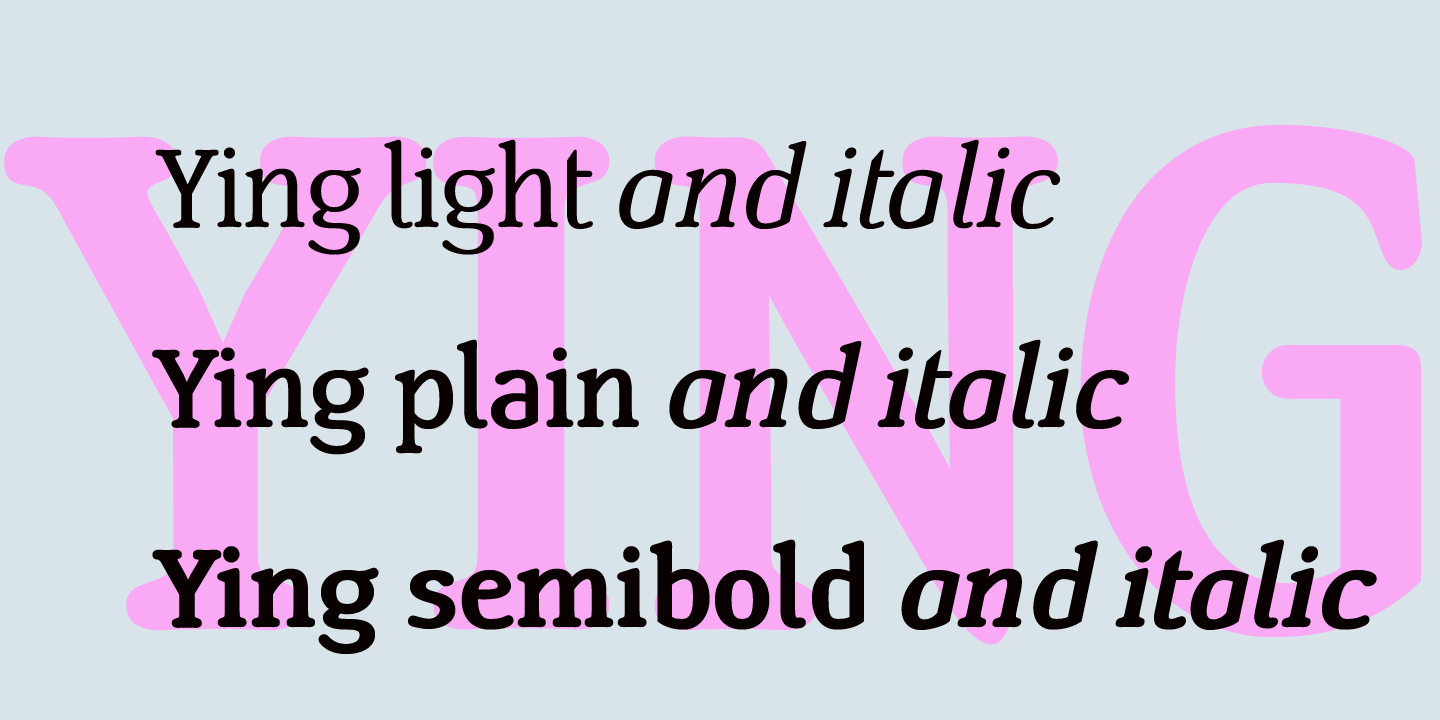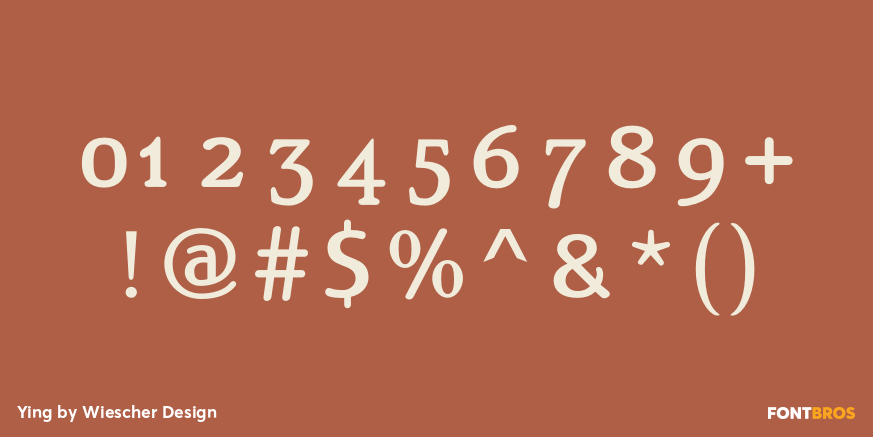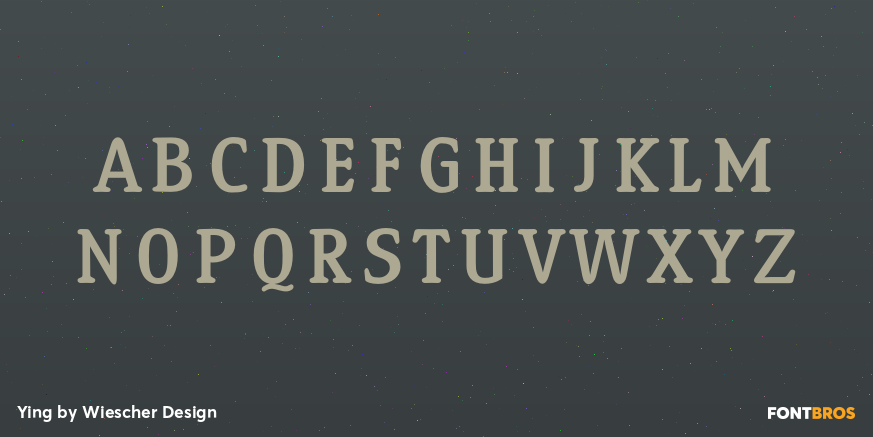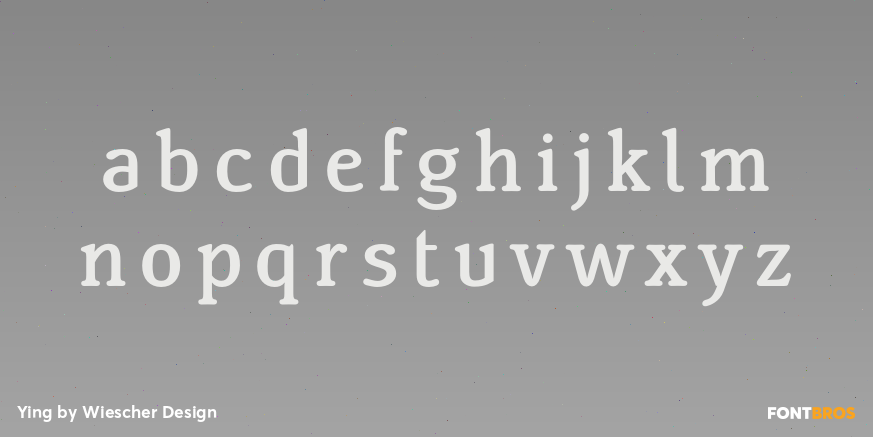
Ying
Font Family by Wiescher Design
Ying is a new Serif typeface that has a little bit of Yang in it.
This combination makes it a very versatile Serif font. Just give it a try and you will see.
Ying goes together very well with Yang its brother-font.